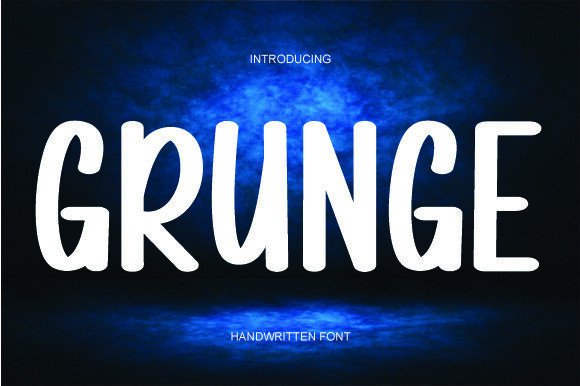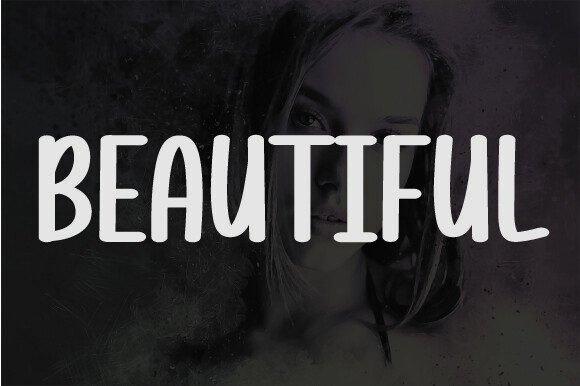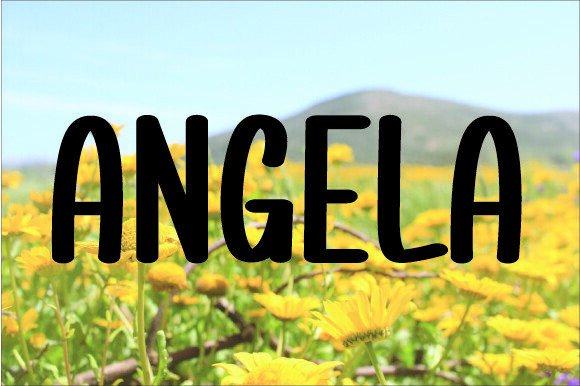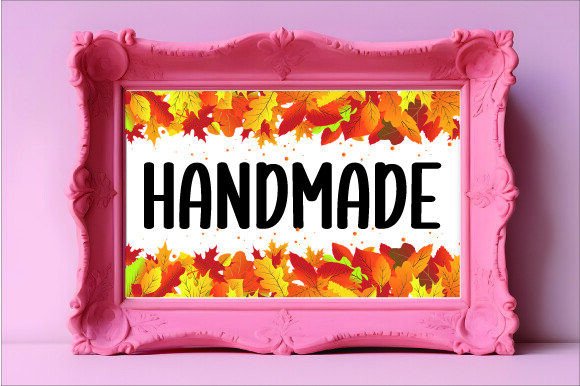
Grunge Font
About the Grunge Font
Discover the charm of Grunge Font. This font is a perfect blend of modern aesthetics and classic appeal. Grunge is a bold handwritten font with a rugged edge and a cool, no-rules attitude. Its thick, rounded letters channel a rebellious yet friendly vibe, perfect for streetwear branding, music posters, and bold editorial designs. It’s loud, raw, and ready to stand out.
Grunge excels in headlines, short impactful statements, and branding applications where a rebellious yet approachable aesthetic is desired. It’s ideal for projects targeting younger demographics interested in streetwear, music, and alternative culture. Avoid using it for body text or long-form content; its bold strokes and irregular letterforms hinder readability at smaller sizes.
Pairing Grunge with a clean sans-serif like Montserrat or a geometric sans-serif like Futura creates a strong visual contrast, balancing its raw energy with a sense of order. For a softer contrast, consider pairing it with a slightly rounded serif like Playfair Display, which retains some elegance while acknowledging Grunge’s playful roughness.
Its core personality is bold, friendly, and rebellious, making it a powerful choice for brands aiming for a distinctive, edgy image. Overuse can feel overwhelming, so use it strategically as a statement element.
Grunge Font Usage Examples
Grunge Font Example